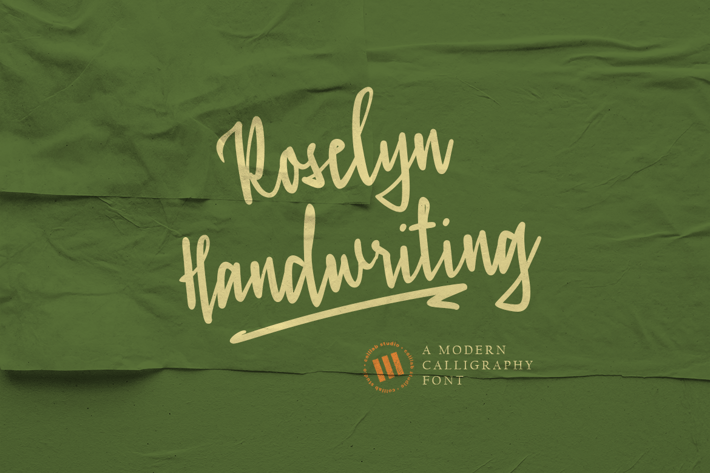
Roselyn Handwriting - An Organic Script Font
Roselyn Handwriting is an organic script font that is suitable for design projects; farmhouse theme, logo, branding, poster, quotes, display, beautiful stationary art, wedding invitation, eye-catching social media posts, and cute greeting cards, and any other designs.
Full uppercase and lowercase glyphs
Underline Swashes (type c1 until c6)
Numbers, punctuations, and symbols